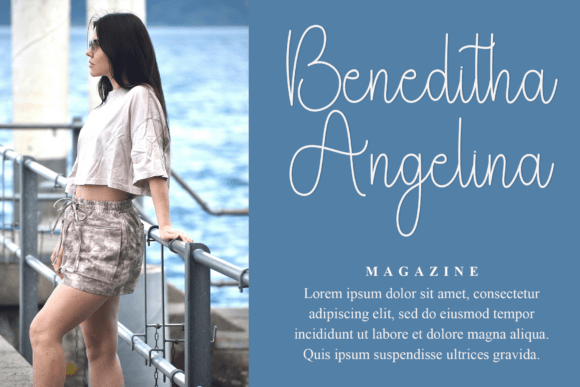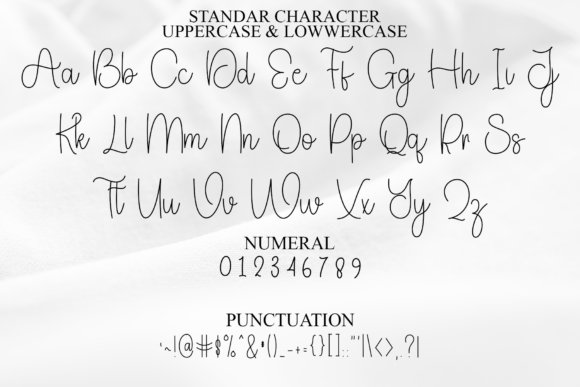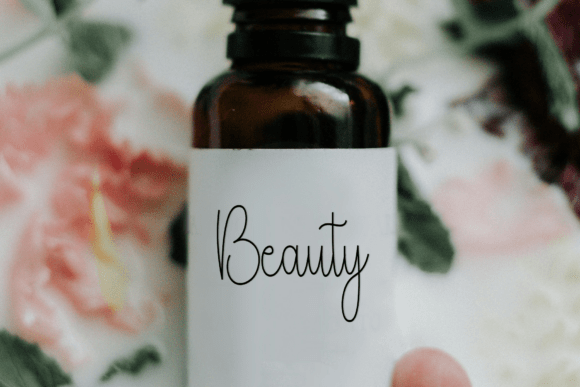
Introduction to Signanture Font
As a designer, there’s nothing quite like the thrill of landing on the perfect font for a project. It’s like finding the missing puzzle piece that brings everything together. For me, that moment happened when I stumbled upon the Signanture Font – a charming, high-quality font that exudes warmth and friendliness. Its round, playful strokes create a relaxed and approachable feel, making it perfect for personal projects, invitations, and social media graphics.
Whether you’re working on a creative project or just need a design resource to give your work a unique touch, the Signanture Font is an excellent choice. With its free download and transparent background, you can easily incorporate it into your designs without any hassle. In this article, we’ll dive deeper into the world of Signanture Font and explore its features, benefits, and uses in various design applications.
Key Features of Signanture Font
- High-quality design: Signanture Font is a well-crafted font designed for creative projects that demand a professional look.
- Large character set: Signanture Font includes a wide range of characters, including uppercase and lowercase letters, numbers, and punctuation marks.
- Unique design: Signanture Font features a distinctive and elegant design, setting it apart from other free fonts available online.
Honest Review: Signanture Font
I recently stumbled upon the Signanture Font, a high-quality font that caught my attention. What I love about this font is its versatility, making it perfect for a wide range of creative projects. Whether you’re working on a business logo or a personal branding project, Signanture Font is definitely worth considering.
One of the standout features of this font is its transparent background, which makes it easy to work with. This feature, combined with its high-quality design, makes it an excellent design resource for any project.
Here are some of the things that work well with the Signanture Font:
- ✨ High-quality design that looks great on any medium
- ✨ Versatile font that can be used for various creative projects
- ✨ Transparent background for easy editing
However, I do have a few limitations to mention:
- ⚠️ Limited character set, which may not be suitable for projects requiring a wide range of characters
- ⚠️ Not ideal for large-scale projects that require a lot of customization
Overall, I’m impressed with the Signanture Font, and I think it’s a great addition to any designer’s toolkit. Its high-quality design and transparent background make it a valuable resource for any creative project. While it may have some limitations, I think it’s definitely worth checking out.
Tips for Getting the Most Out of Signanture Font
When using Signanture Font, be sure to take advantage of its transparent background feature. This allows you to easily combine the font with other design elements, such as images and shapes. You can also experiment with different font sizes and styles to create a unique and creative look.
What is the recommended font size for the Signanture Font in a creative project?
The recommended font size for the Signanture Font varies depending on the specific design project and the desired level of legibility. However, as a general rule of thumb, we recommend using the Signanture Font at a minimum size of 12 points for body text and 18 points for headings. This ensures that the font remains clear and readable, even at smaller sizes.